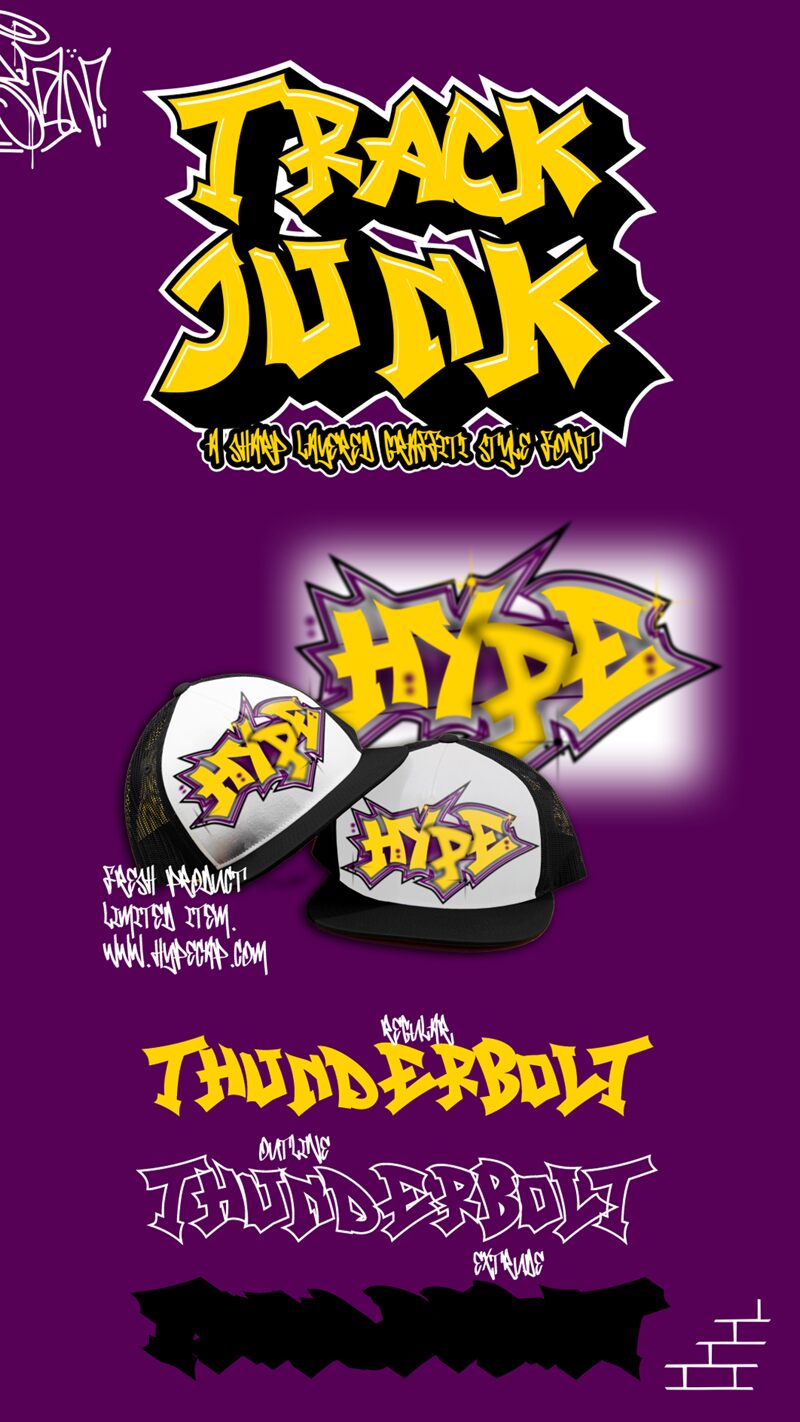
Track Junk Extrude font by Muhammad Panji Ramdhani of Figuree Studio is a free graffiti font with chunky, jagged shapes that feel like torn paper and spray-paint shadows. The extruded weight gives each word a hard-edged, 3D punch, while the uneven rhythm keeps it raw and streetwise rather than polished.
Using Track Junk Extrude, you’ll get loud impact on streetwear logos, skateboard graphics, album covers, event posters, YouTube thumbnails, gaming headers, and sticker packs. Set it big with generous tracking so the spikes can breathe, then pair it with a plain condensed sans for any supporting details—this free font does the shouting so the rest can stay clean.